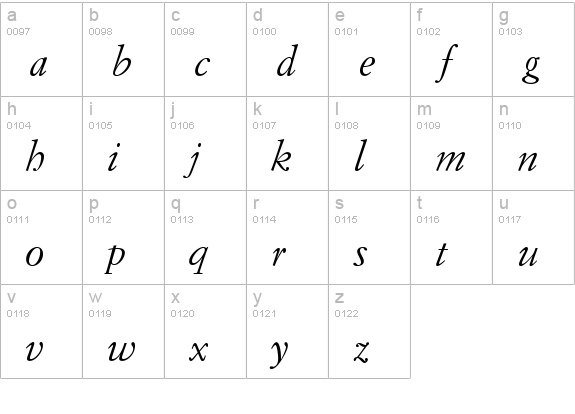
Simoncini Garamond Std Italic Font Details
Simoncini Garamond Std Italic is a distinctive, italic variant in the Simoncini typeface family \xE2\x80\x94 well suited to design and typography projects.
Simoncini Garamond Std Italic is a timeless and elegant typeface that exudes sophistication and refinement. With its delicate slant and graceful curves, this font adds a touch of elegance to any design project. This italic variant of the Simoncini Garamond Std font is perfect for adding emphasis and style to your text. Whether you're designing a book cover, creating a logo, or crafting a poster, this font will effortlessly elevate your design to new heights. One of the standout features of Simoncini Garamond Std Italic is its versatility. It can be used for both headings and body text, making it a versatile option for any project. Its legibility and readability ensure that your message is conveyed clearly and effectively. What makes Simoncini Garamond Std Italic even more appealing is that it is available for free download at FontsMarket.com. This means that you can easily access and use this beautiful typeface without any cost. The free availability of this font allows designers, students, and enthusiasts to explore its potential without any limitations. So, whether you're a professional designer or someone who simply appreciates the beauty of typography, Simoncini Garamond Std Italic is a must-have font in your collection. Its timeless elegance and free availability make it an irresistible choice for any design project. Download it today from FontsMarket.com and unlock the creative possibilities that this font offers.